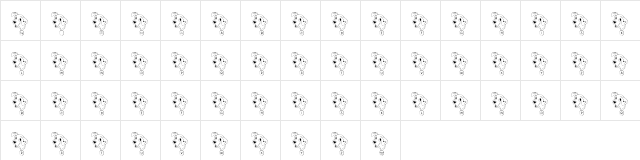
Complete FL Firehouse Pup Regular glyph index. Displaying only characters natively supported by FL Firehouse Pup Regular font.
FL Firehouse Pup is a composed and adaptable typeface that performs quietly and consistently across a wide range of design contexts.